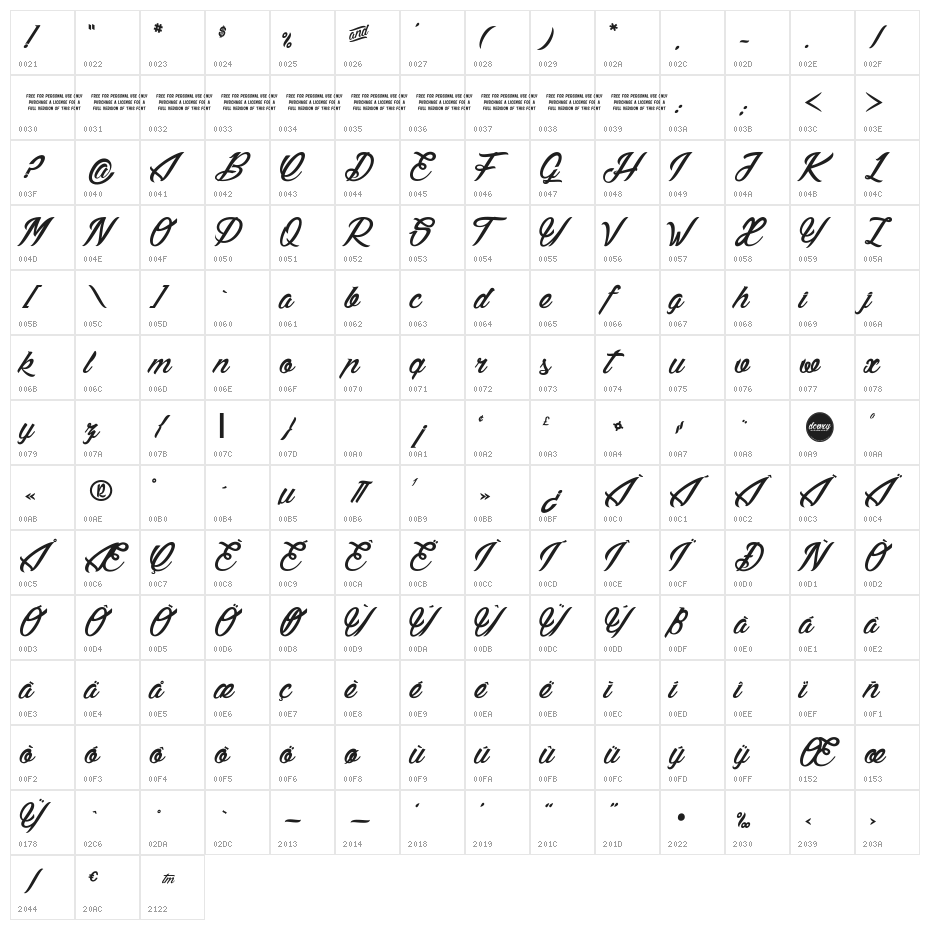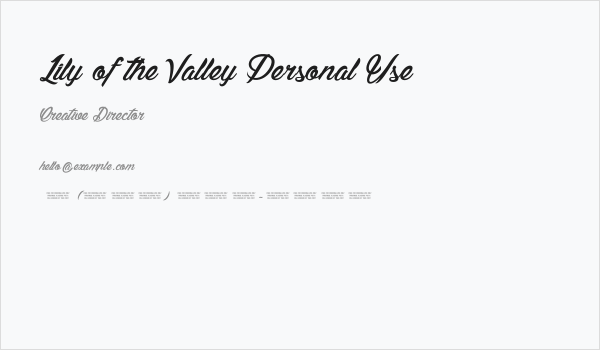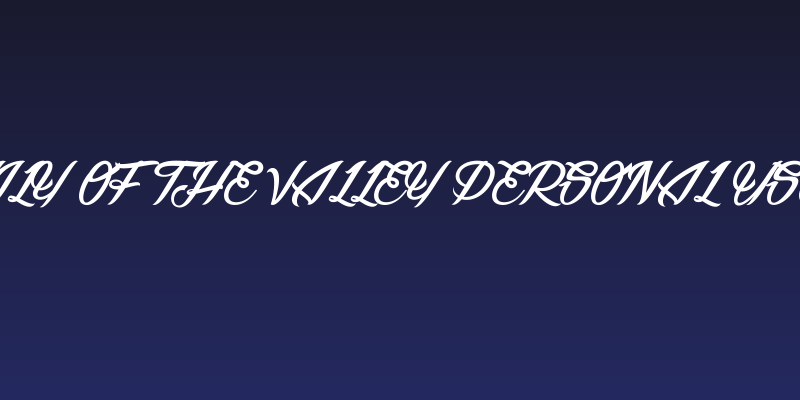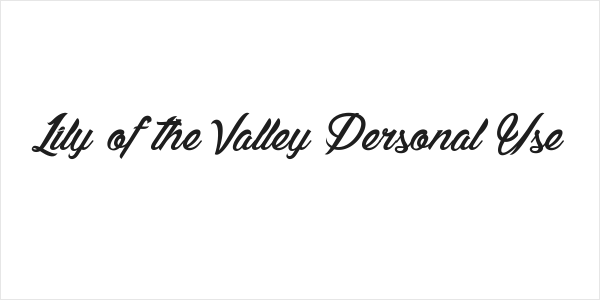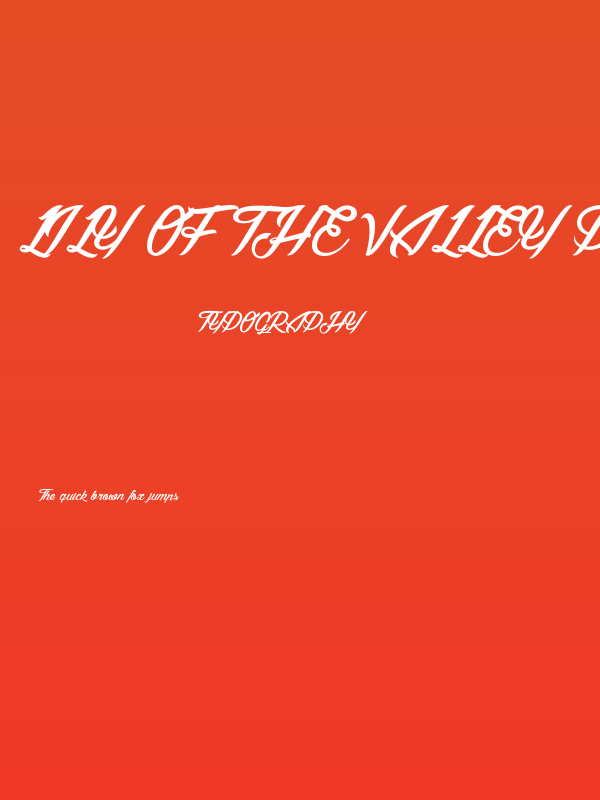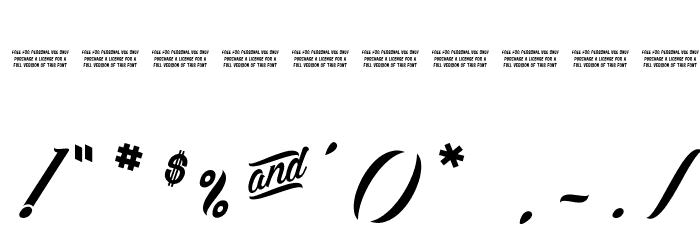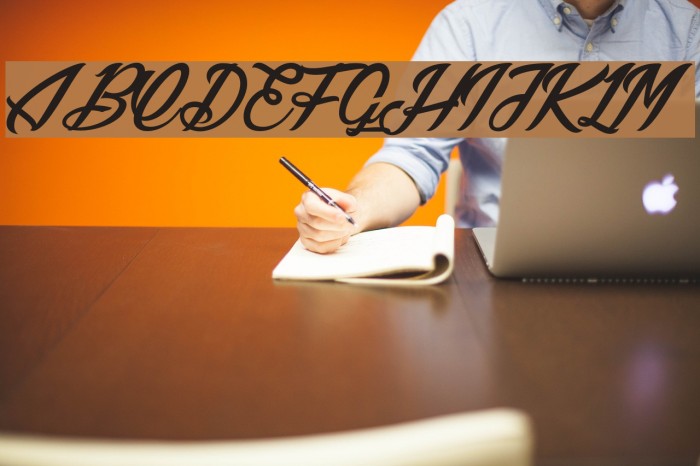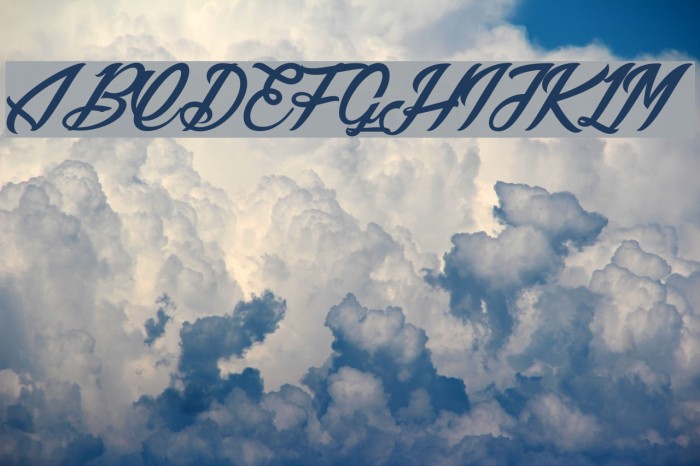
Lily of the Valley_Personal_Use Font
Lily of the Valley_Personal_Use Description
This font exhibits a flowing, cursive style with a distinct elegance and flair. The letters are interconnected, creating a seamless and continuous script that mimics the fluidity of handwriting. The uppercase characters are bold and prominent, with sweeping curves and loops that add a touch of sophistication. The lowercase letters maintain the same fluidity, with some characters featuring unique flourishes that enhance the overall aesthetic. The numbers and special characters are designed to match the script style, ensuring consistency throughout. This font is ideal for projects that require a personal, elegant touch, such as invitations, greeting cards, or branding materials.
| Overall Style | Elegant, Decorative |
| Proposed Projects | Ideal for wedding invitations, greeting cards, branding, and elegant signage. |